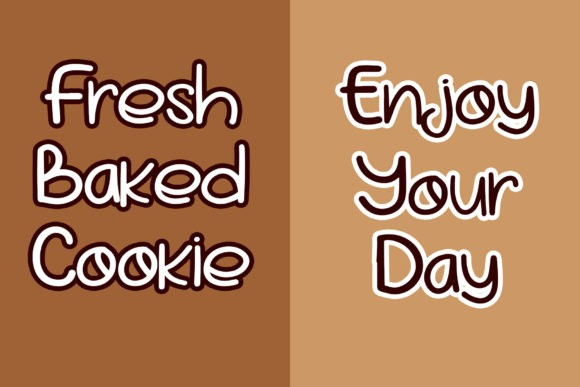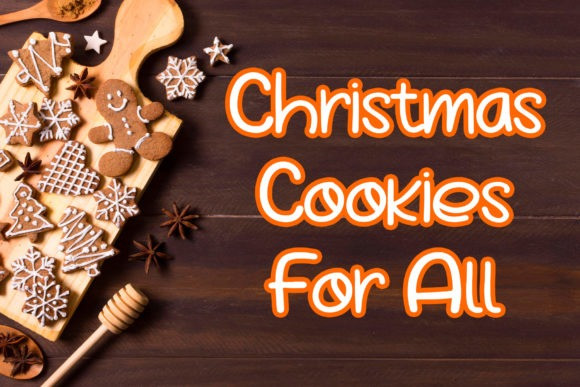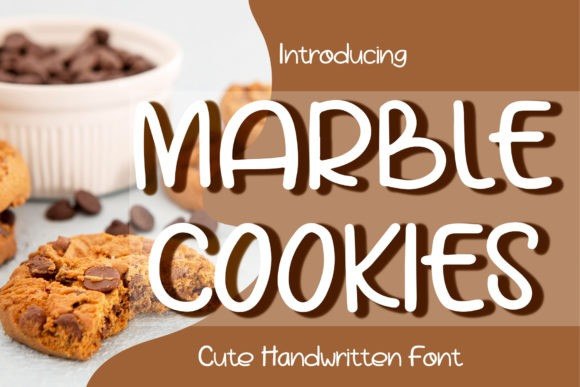
Marble Cookies Cute Font
Marble Cookies is a unique and simple handwritten font. Perfect for your Christmas projects or another seasonal project. Expand your creativity with this lovely font.